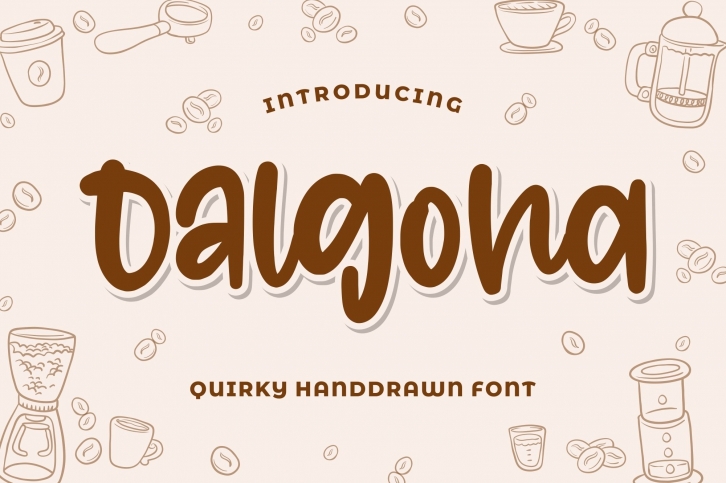
Dalgona - Quirky Font Download
Dalgona is a gorgeous font that was realeased on April 20, 2020. The font can be used in many style contexts and design environments. Perfect for invitations, magazines, websites, logos, and more! It was designed by Good Java Studio and the file size is 15.49 MB. Thanks for checking out this font!